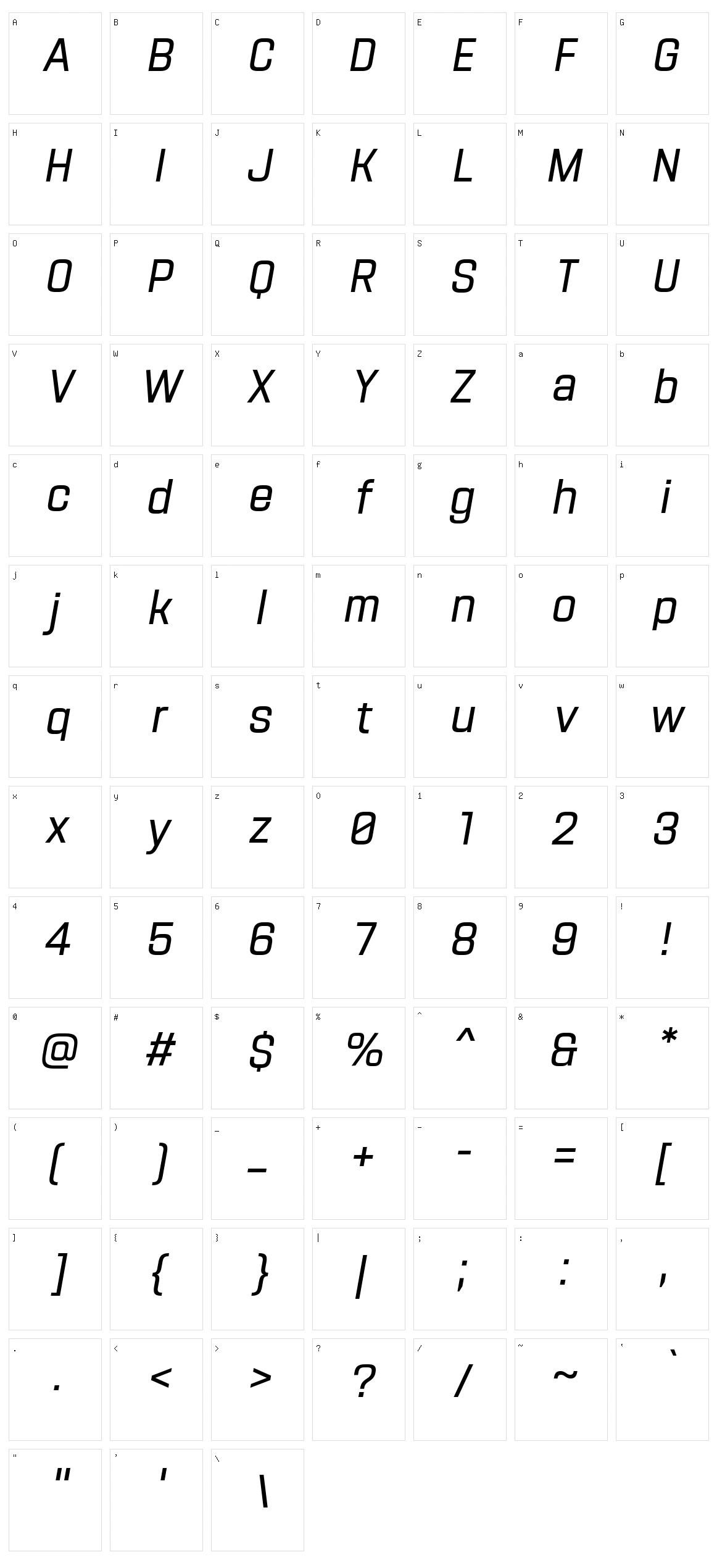
Navine is a rectangular sans serif typeface with 3 widths, each
with 9 uprights and the corresponding italics. Navine is crafted
with powerful OpenType features, alternate glyphs, kerning pairs,
superiors, inferiors, and much more. Navine blends beautifully
in your creative designs.